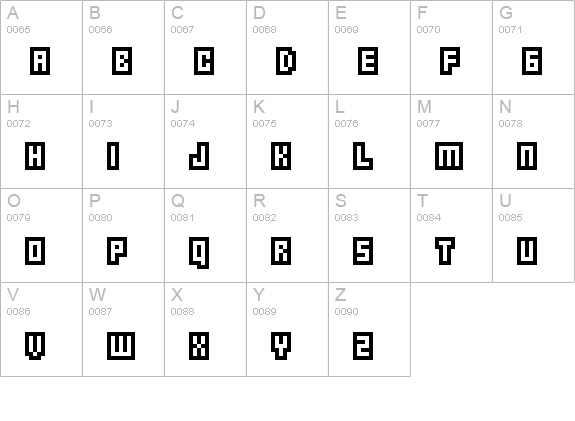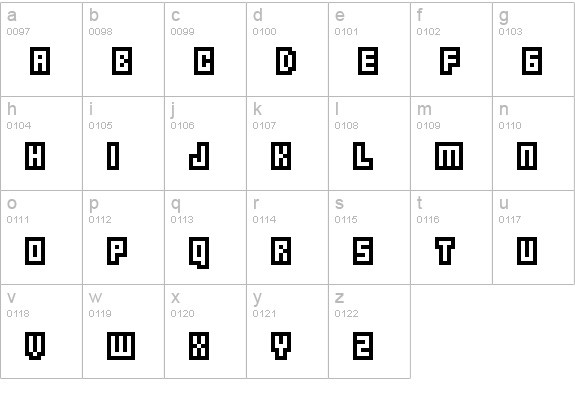
Borgnine Font Details
Borgnine font is a versatile and modern typeface that exudes a unique blend of elegance and sophistication. With its sleek lines and distinctive letterforms, Borgnine is perfect for a wide range of design projects, from branding to editorial design. What sets Borgnine font apart is its ability to seamlessly blend into any design style while still making a bold statement. Whether you're looking to create a sleek and professional look or a more playful and creative design, Borgnine font has you covered. Best of all, Borgnine font is free to download at FontsMarket.com, allowing you to access this stunning typeface without breaking the bank. Don't miss out on the opportunity to elevate your design projects with Borgnine font today!